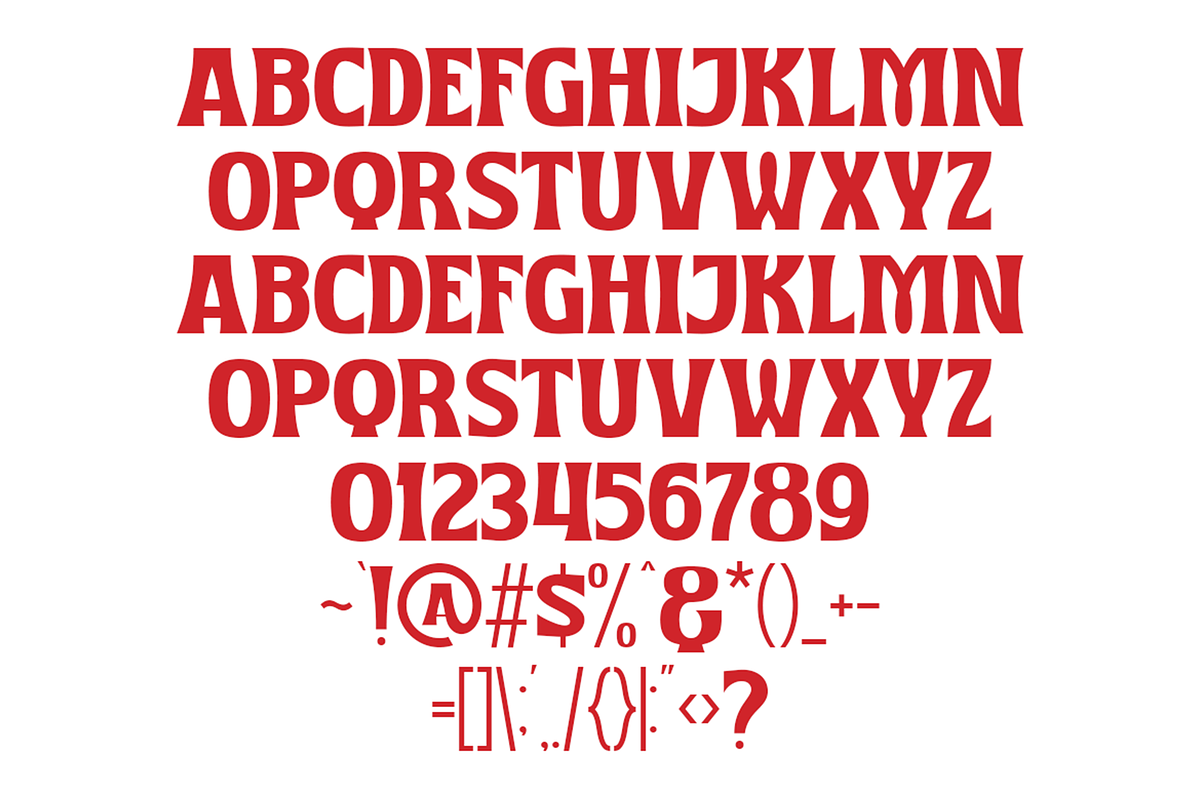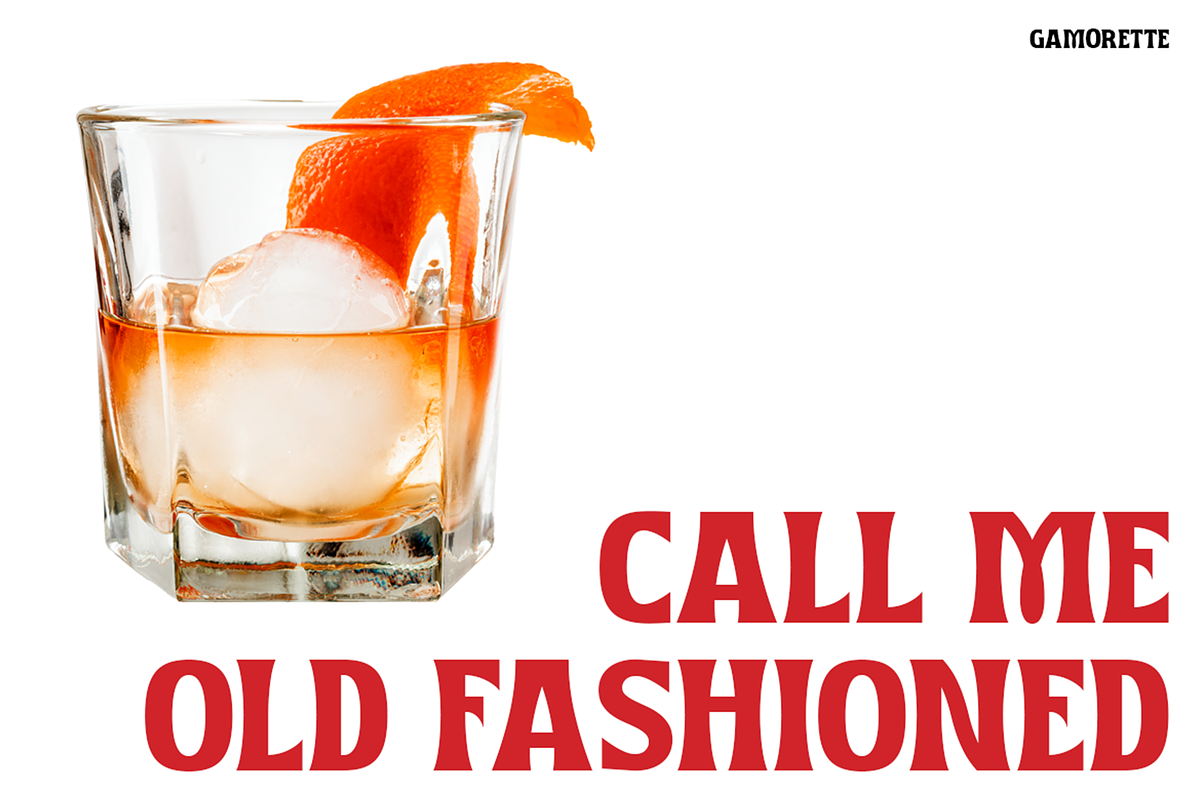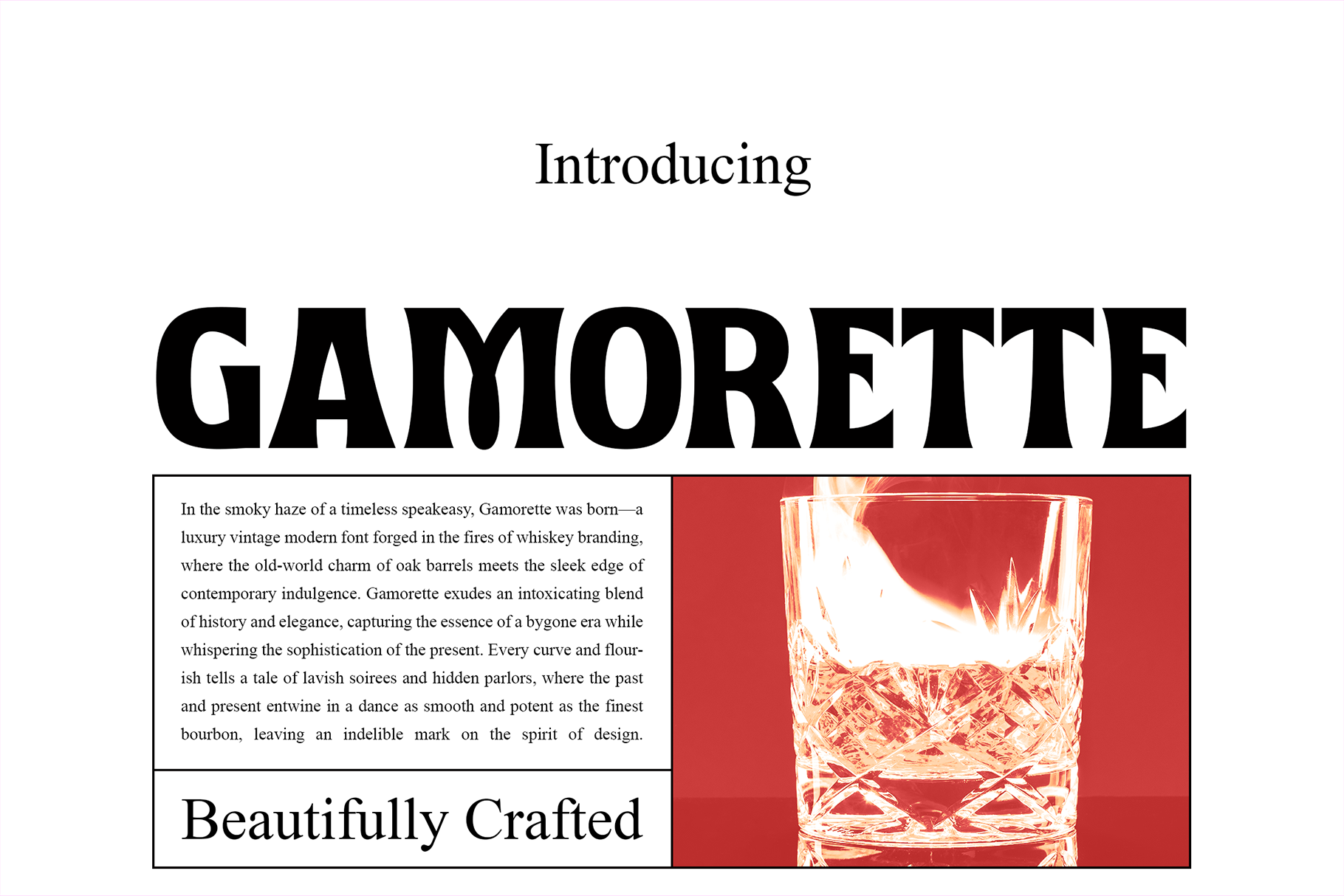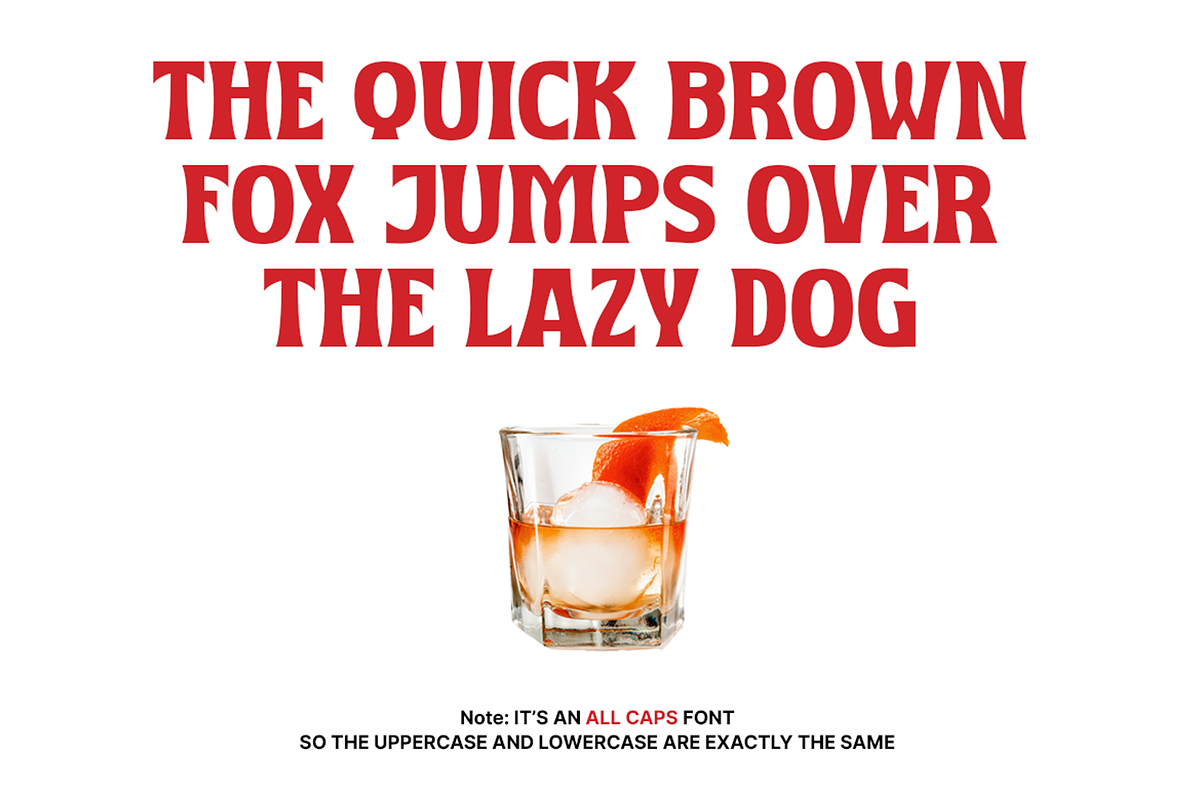
Gamorette - Luxury Vintage Fonts
Step back in time with a typeface that blends the sophistication of classic whiskey labels with the sleek, modern aesthetics of today. Gamorette captures the essence of vintage charm, bringing a touch of refined luxury to your designs. Perfect for premium branding, high-end packaging, and everything in between, this font is your go-to for creating a contemporary look with a nod to the past. With Gamorette, every letter tells a story of craftsmanship, elegance, and timeless style—just like a fine whiskey.